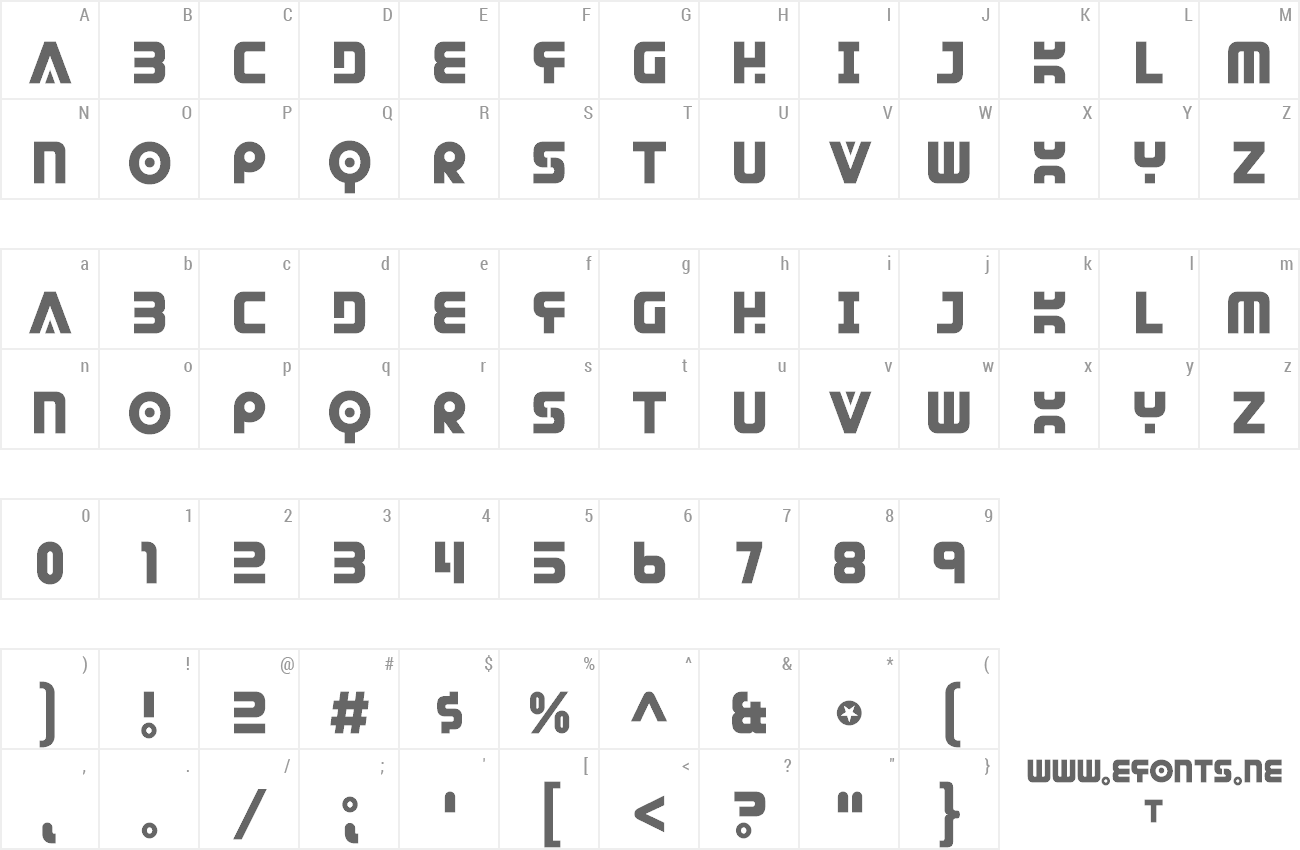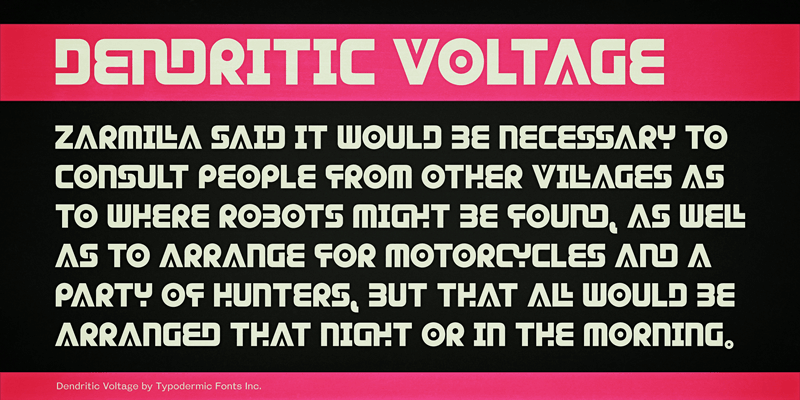
Preview and download Dendritic Voltage Font. Created by Typodermic Fonts in Techno Various styles with 100% Free license.
Dendritic Voltage is a techno font, inspired by digital cyber-trash or some crap like that back in 1999. This new version has been updated with better language coverage, more symbols, improved accents, fractions and numeric ordinals. The original lame-o narrow caps which were located in the lowercase set have been moved. If you need them, you can still access them in OpenType savvy applications using the “stylistic alternates” feature. Some splendid joined letter ligatures have been added to create the occasional funky effect. The old double L has been replaced with a single L . . . that makes sense. To get the double L back, just type two L’s. Spacing and kerning have been completely redone and the vertical alignment is more precise. Vertical metrics have been maxed out for better web performance. This font includes a license that allows free commercial use: sometimes referred to as a desktop license. This allows you to install the font on a computer and use it to create posters, web graphics, game graphics, t-shirts, videos, signs, logos and more. Read the license agreement for details. If you'd like to embed this font in an app, ebook, on the web or anything that's not covered by the desktop license agreement, visit the link below. You'll find distributors who offer different types of licenses or you can contact me for help. http://typodermicfonts.com/dendritic-voltage/ |